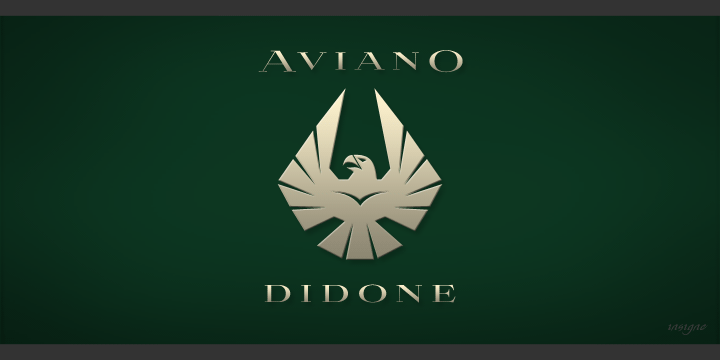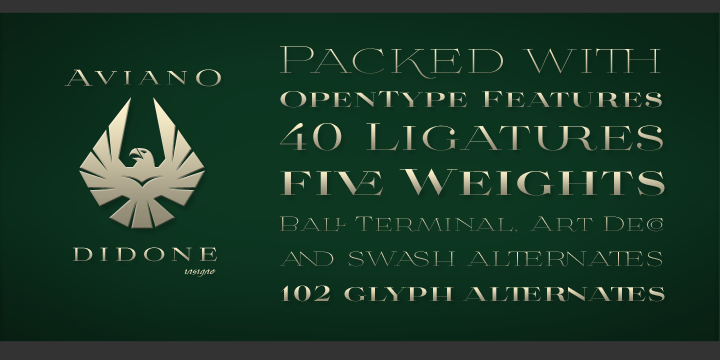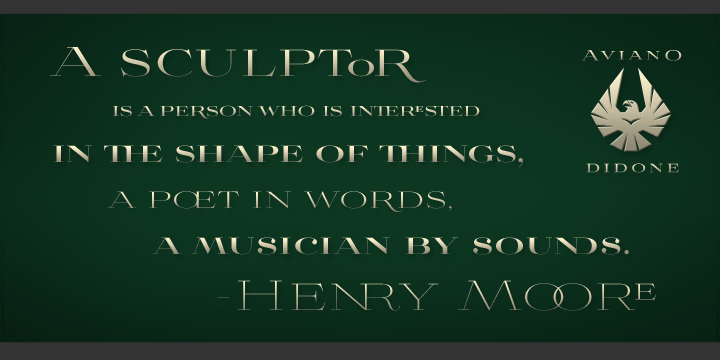
Aviano Didone
Font Family by Insigne
Buy NowThe Aviano series returns with a Didone or Modern face.
Aviano Didone's high contrast forms lend elegant beauty, luxury and romance to your designs and it's extended letterforms provide strength and power. Aviano's foundational classical forms give the face a look that is unique for Didone faces. Aviano Didone is a bold new interpretation of vertically contrasted type.
Aviano Didone comes in five different weights and is packed with OpenType features. Want ball terminals for that logotype or headline? Flat serifs? Swash forms? Aviano Didone includes 102 alternate characters. Five style sets are available, and Art Deco inspired alternates, small forms, swash, titling and stylistic alternates. Aviano Didone also includes 40 discretionary ligatures for artistic typographic compositions. Please see the informative .pdf brochure to see these features in action.